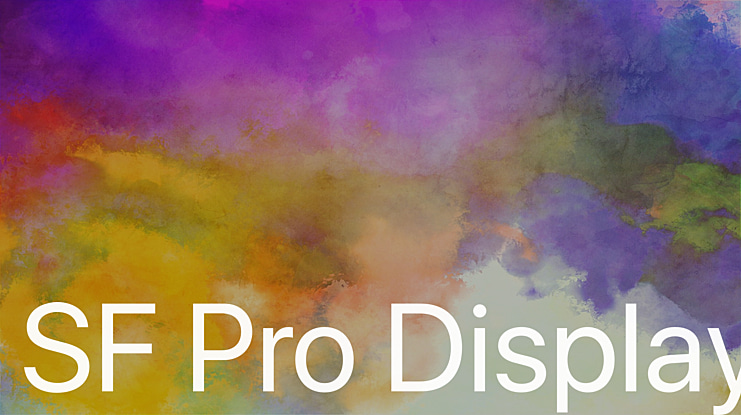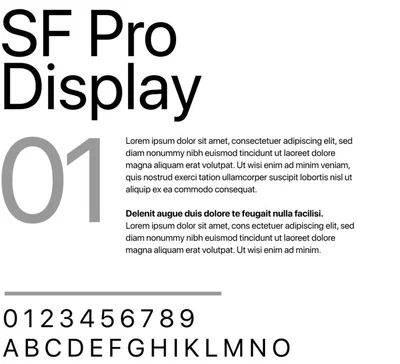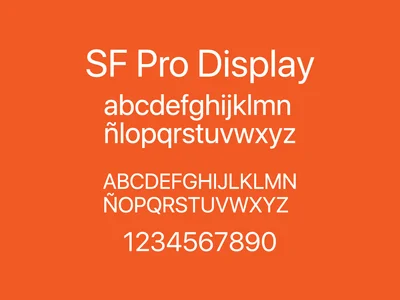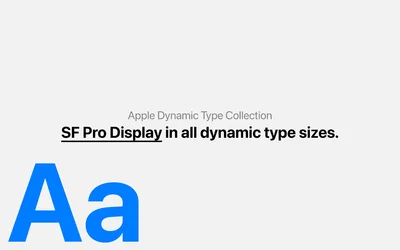
Inter vs SF Pro Display
Inter is the most practical open-source replacement for SF Pro Display in cross-platform product design. At 88% similarity, both share the same screen-first DNA — tall x-height, open counters, and optical sizing. Inter adds broader language support and runs everywhere SF Pro cannot (Android, Windows, Linux), making it the standard choice for teams that want Apple's typographic clarity without platform lock-in.
88% Similarity
Inter
SF Pro Display
| Feature | Inter | SF Pro Display |
| Variable Font | Yes | Yes |
| Weights | Variable (100-900) | Variable |
| Language Support | latin, latin-extended, cyrillic, cyrillic-extended, greek, greek-extended, vietnamese | latin, latin-extended, cyrillic, greek |
Where You'll See These Fonts
SF Pro Display
- iOS and macOS system interfaces
- Apple marketing and product pages
- Native iOS and macOS app typography
- Developer documentation and WWDC presentations
- Apple retail environments
Recommended: Inter
- Shares SF Pro Display's modern character
- Particularly suited for cross-platform app interfaces and design system foundations
- Variable font with continuous weight adjustment
- Supports 7 scripts including cyrillic and cyrillic-extended
- Delivers a modern, clean, professional aesthetic
Consider: SF Pro Display
- Designed specifically for ui and apps
- Used by iOS and macOS system interfaces, Apple marketing and product pages